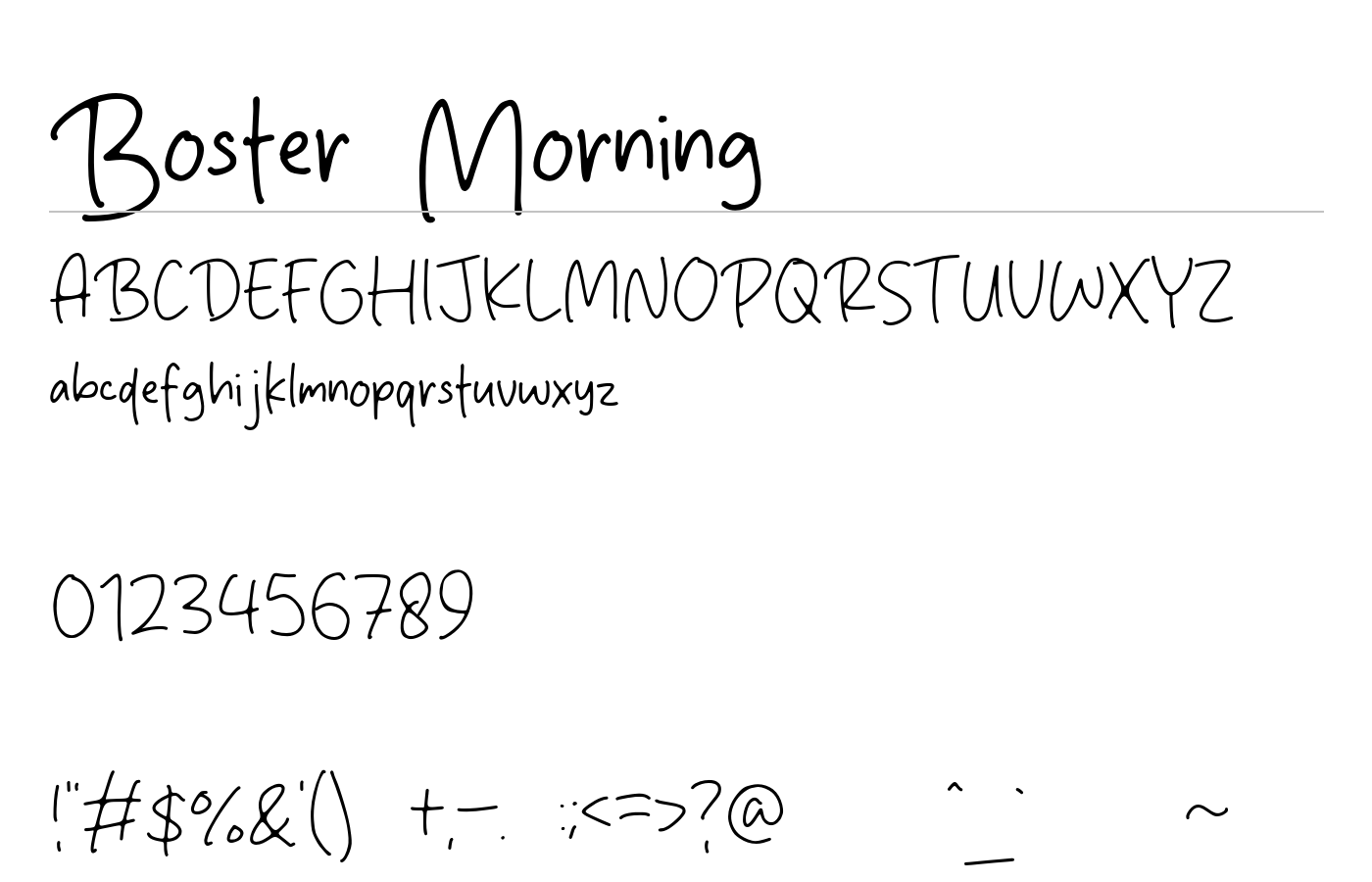
Boster Morning is a casual handwritten sans serif font with a light, airy feel and a natural, playful touch. Its tall, slightly irregular letterforms and smooth strokes create an approachable and friendly vibe, making it perfect for informal designs, personal branding, and creative projects that want to evoke warmth and individuality. This font works well in headlines, invitations, and social media graphics where a personal, genuine style is desired.
Boster Morning Font
About Boster Morning Font